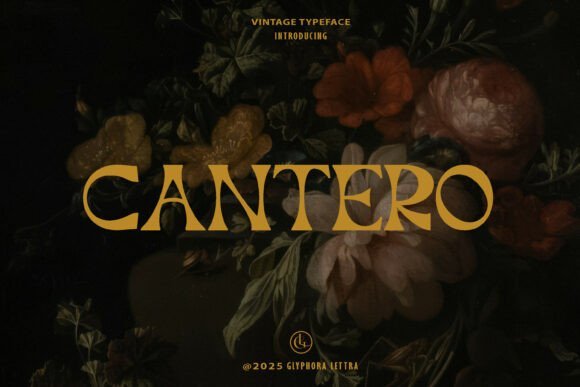
Introduction to Cantero Font
Cantero is a vintage-inspired serif typeface that captures timeless elegance, classic craftsmanship, and refined character.
Inspired by classic typography and historical print aesthetics, Cantero delivers a warm, sophisticated presence that feels rich, authentic, and expressive .